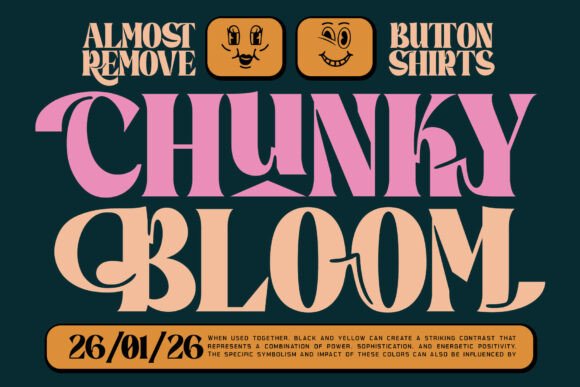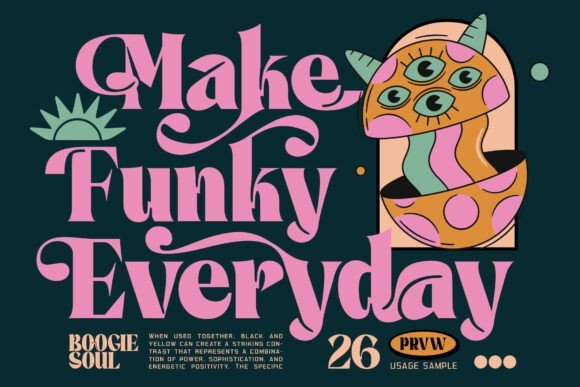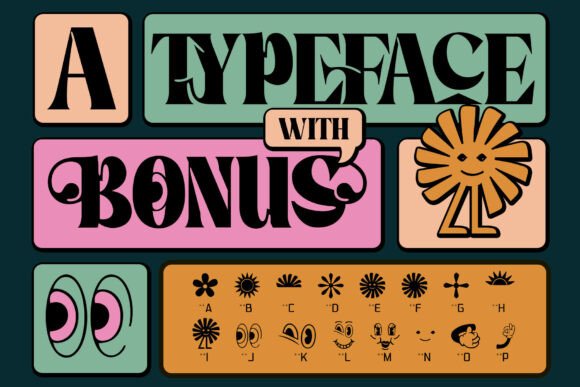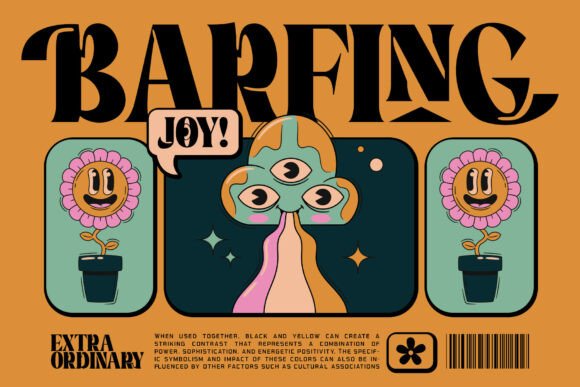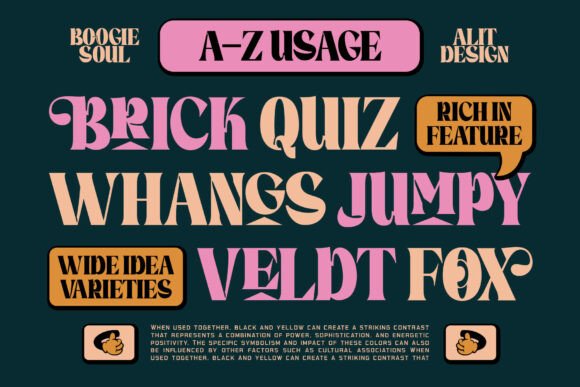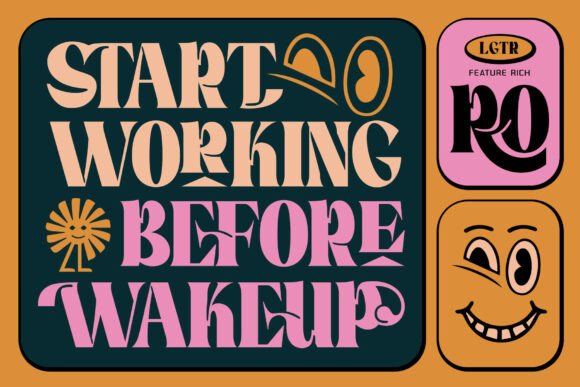
Boogie Soul – The Ultimate Psychedelic & Quirky Display Font
Step into the groove and let your designs dance! Introducing Boogie Soul, a typographic time machine that captures the free-spirited energy of the 1960s and the funky bold aesthetics of the 1970s. This isn’t just a font; it is a complete design system built to inject personality, quirkiness, and pure “soul” into your visual projects.
A Design Moment of Truth
I recall working on a project for a local music festival, struggling to find the perfect font that embodied the playful, psychedelic vibe of the event. The client wanted something that would stand out, something that would make their posters and social media graphics pop. I scoured the internet, tried out countless fonts, but none seemed to capture the essence of the festival. That was until I stumbled upon Boogie Soul. It was like a breath of fresh air – the high-contrast strokes, the liquid curves, and the insane versatility of the font won me over. My designs were suddenly transformed, and the client was thrilled.
Why You’ll Love Boogie Soul
- ✨ Insane Versatility (981 Glyphs!): With nearly 1,000 glyphs at your fingertips, you are never stuck with a single look. Boogie Soul is packed with OpenType features, allowing you to customize almost every letter to fit your specific layout.
- ✅ The “Psychedelic” Factor: Use the standard characters to create bold, eye-catching designs that scream of the 60s and 70s psychedelic culture.
- 💥 High-Contrast Strokes & Liquid Curves: Boogie Soul’s unique design ensures your message doesn’t just sit there—it performs, making it perfect for band posters, streetwear brands, or playful logos.
- ✨ The font’s versatility and wide range of glyphs.
- ✅ The ease of use, especially with OpenType features.
- 💥 The unique, psychedelic vibe that adds a touch of quirkiness to any design.
- 🤔 Learning Curve: With so many glyphs and features, it might take some time to get familiar with all the possibilities Boogie Soul offers.
- ⚠️ Legibility at Small Sizes: As with many display fonts, Boogie Soul might lose legibility when used at very small sizes.
Boogie Soul was inspired by the iconic designs of the 1960s and 1970s, a time when typography was bold, playful, and full of personality. The font’s creator envisioned a typographic time machine that would capture the free-spirited energy of the era and inject it into modern designs. With Boogie Soul, designers can now create bold, eye-catching graphics that scream of the psychedelic culture and funky aesthetics of the past.
| Font Name | Boogie Soul Font |
| Author | Alit Design |
| What makes Boogie Soul unique? | Boogie Soul’s unique blend of high-contrast strokes, liquid curves, and insane versatility (981 glyphs!) makes it a standout font for designers. |
| Is Boogie Soul suitable for body text? | While Boogie Soul is primarily a display font, it can be used for short paragraphs of body text. However, for longer texts, a more legible font might be more suitable. |